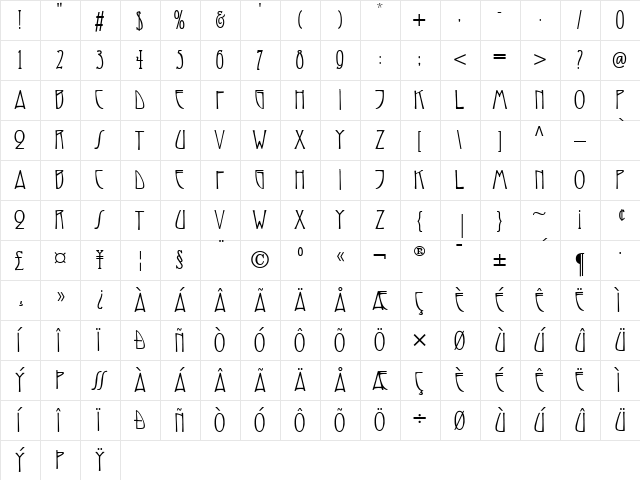
Reynold Art Deco Regular
Design Context for Reynold Art Deco Typeface
Reynold Art Deco is a composed and adaptable typeface that performs quietly and consistently across a wide range of design contexts.